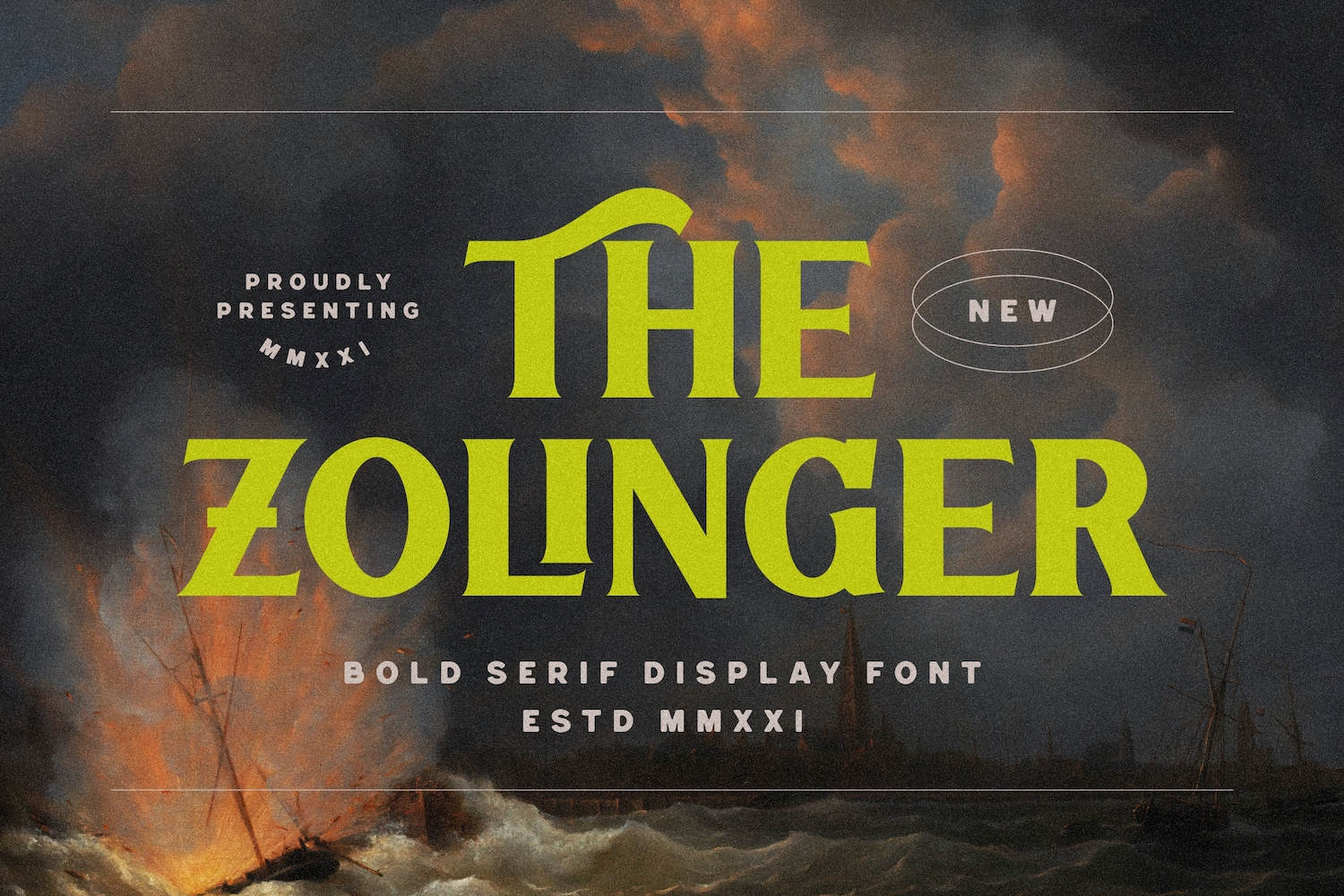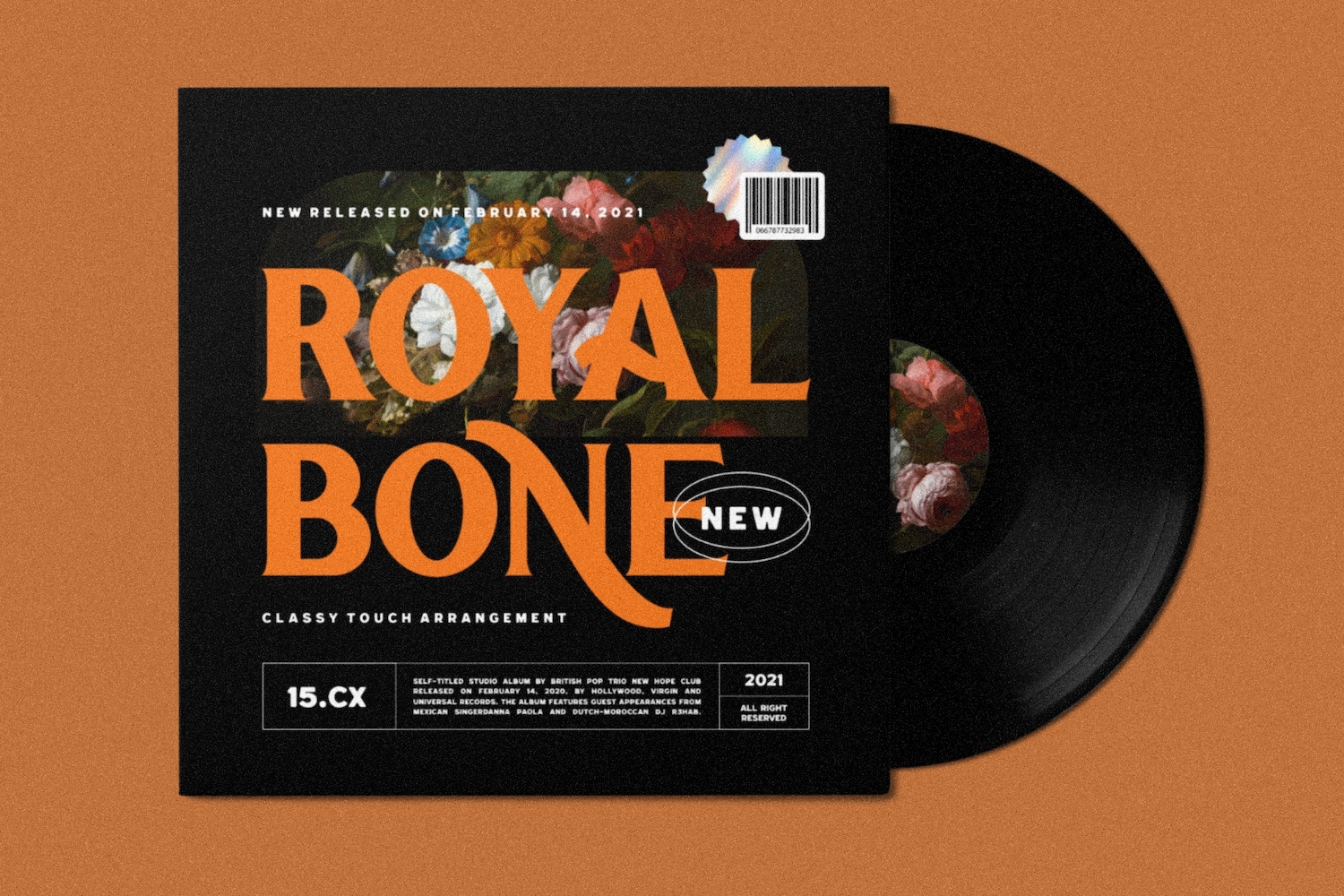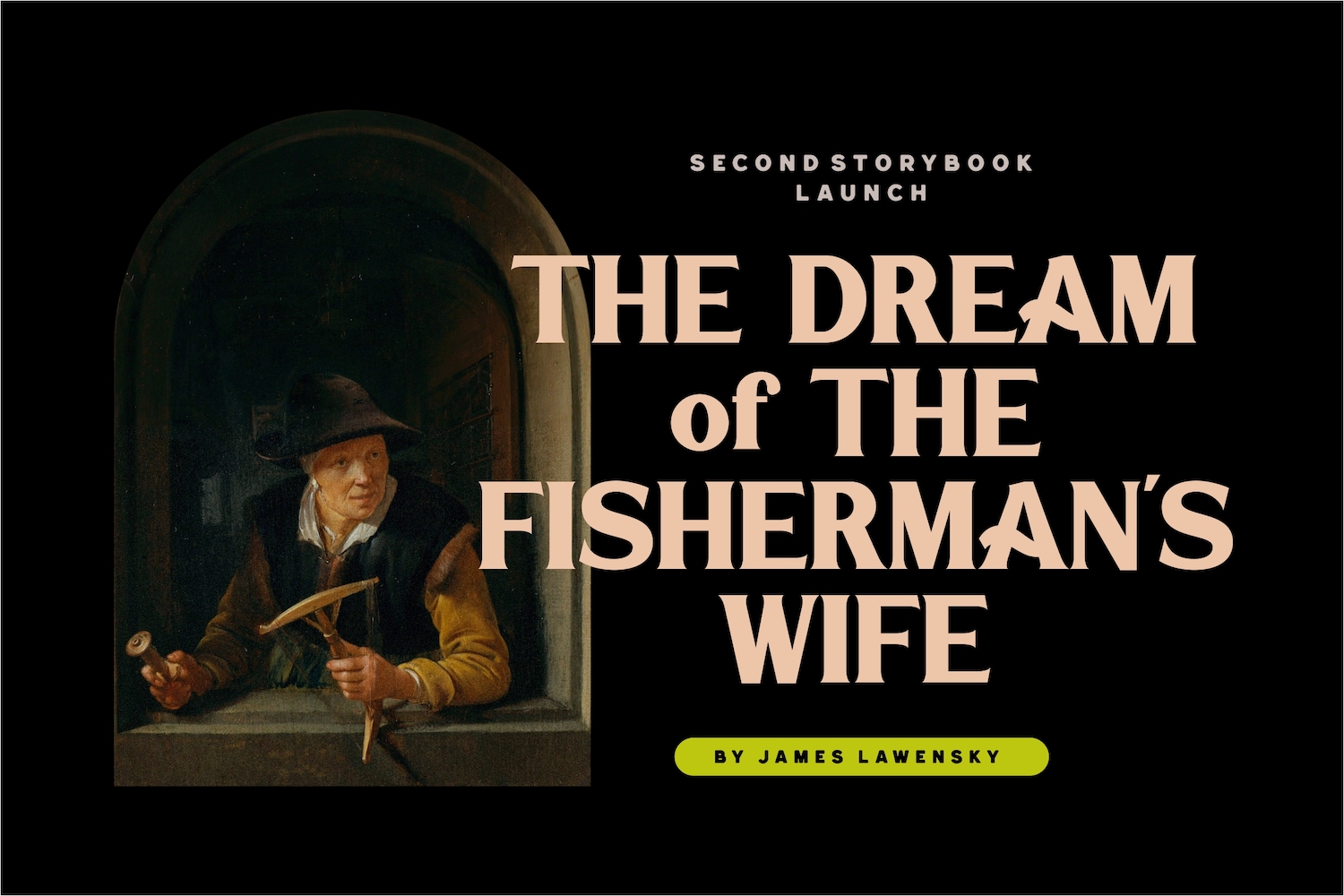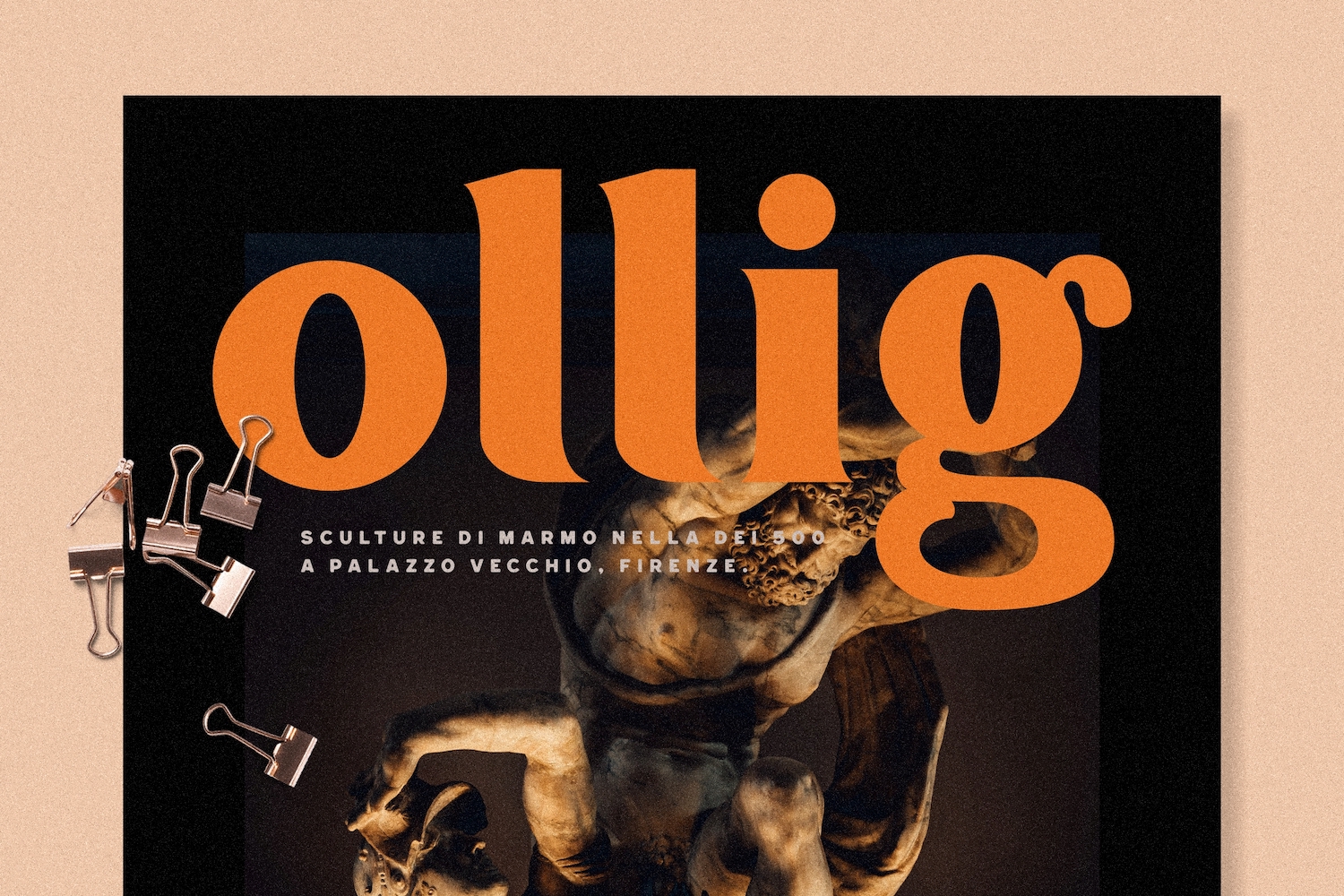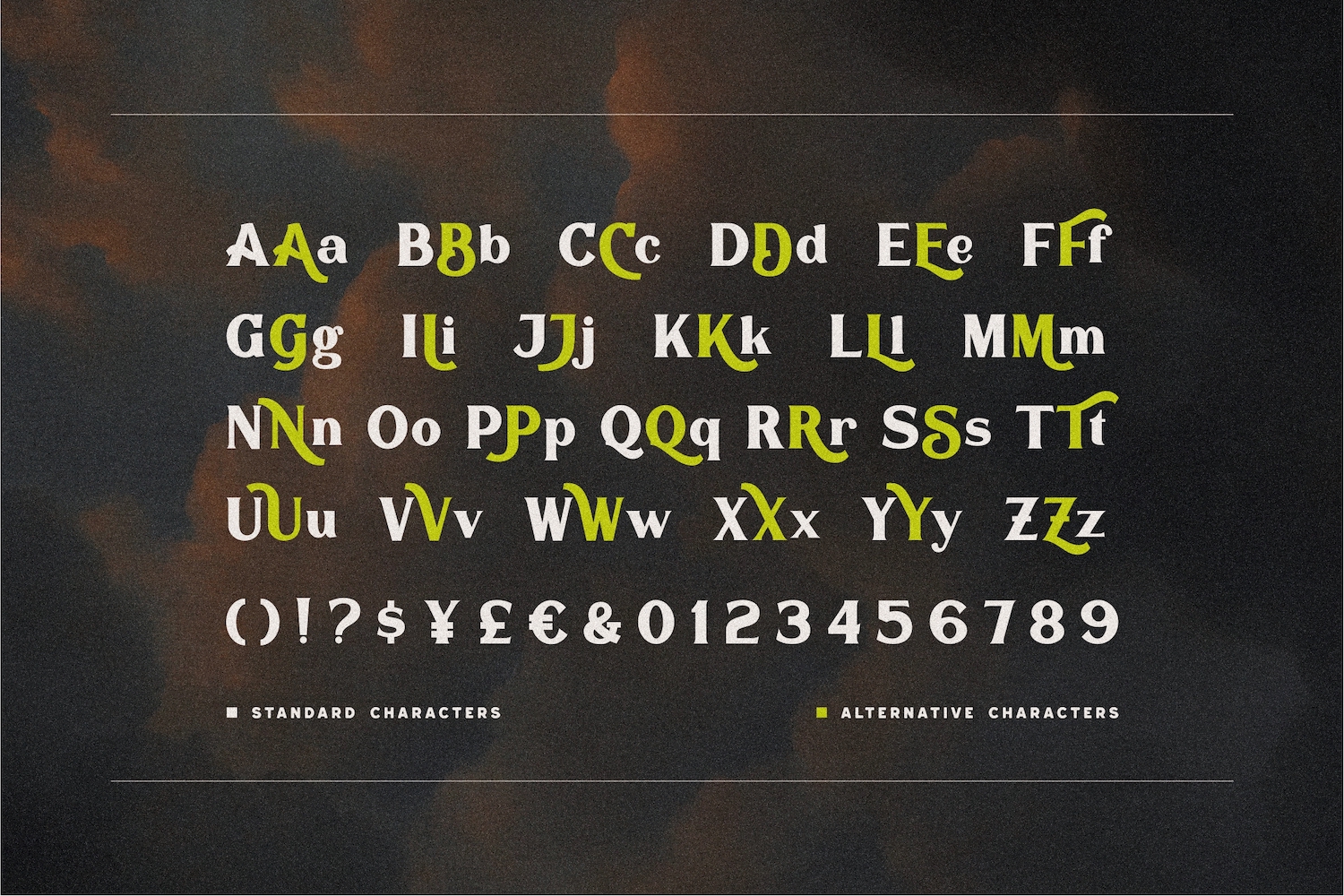
Zolinger is a bold serif display font that merges classical elegance with modern edge. Its striking letterforms feature sharp angles, sweeping curves, and high-contrast strokes that evoke a sense of heritage and authority. Ideal for headlines, posters, book covers, and branding projects, Zolinger captures attention with its unique blend of vintage aesthetics and contemporary sophistication.
The font offers uppercase, lowercase, punctuation, numerals, and a set of stylistic alternates, giving designers flexibility in creating compelling visual narratives. Zolinger stands out in any design context where boldness and character are essential — from editorial layouts to music artwork, fashion campaigns, and more.